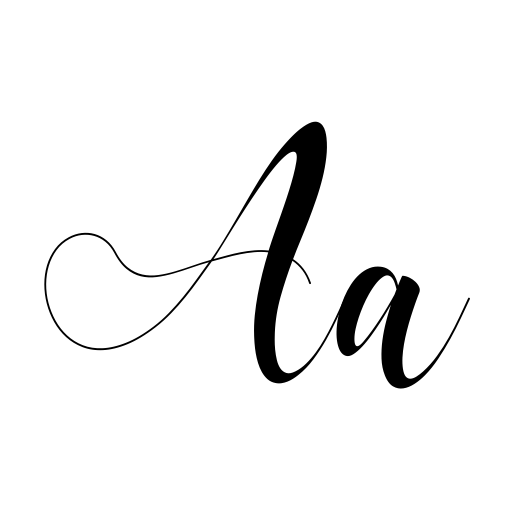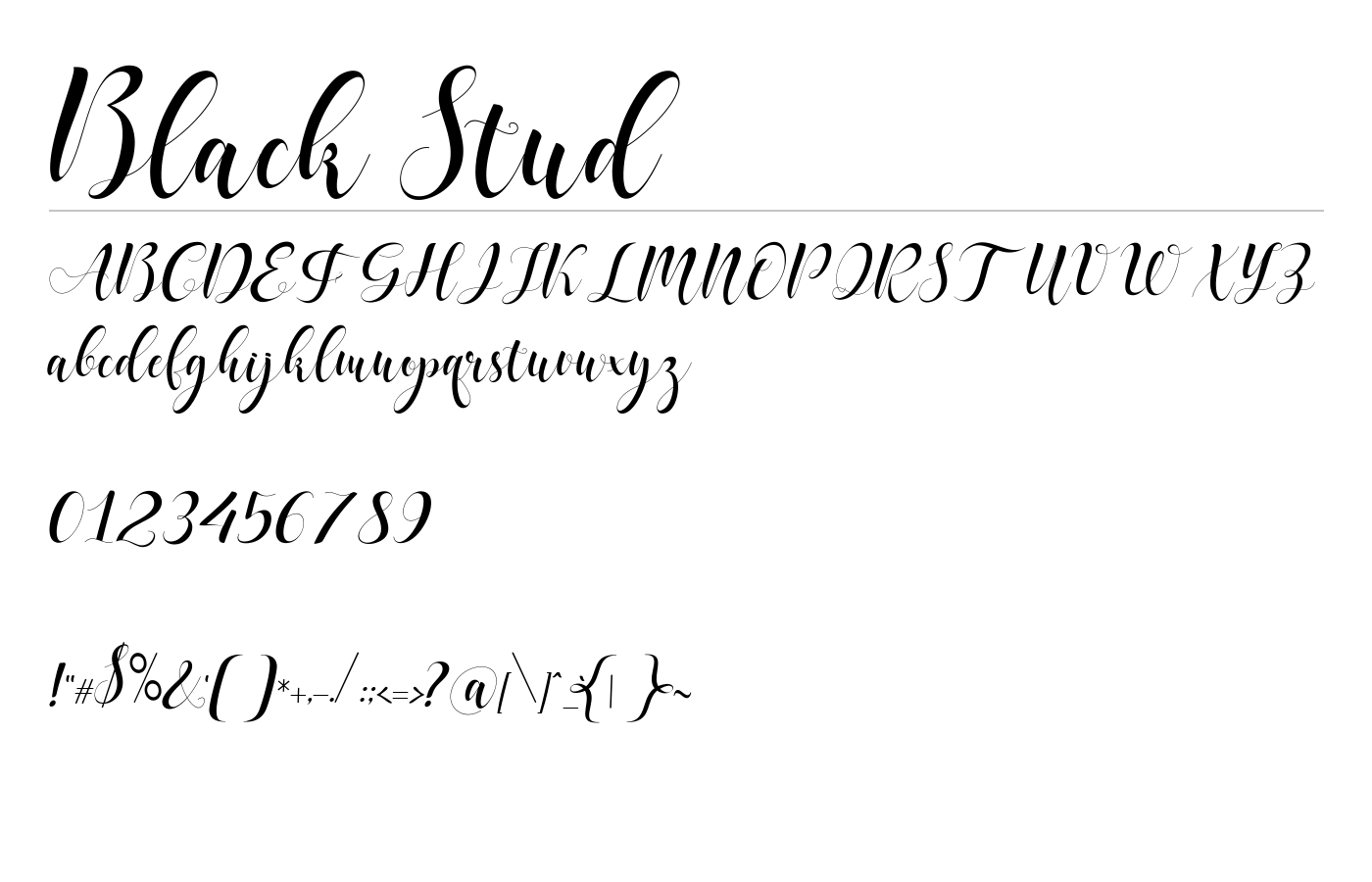
Black Stud is an elegant and stylish script font with flowing, calligraphic strokes that combine thick and thin contrasts for a sophisticated look. Its graceful, swirly letterforms and delicate flourishes create a refined and luxurious feel, making it ideal for wedding invitations, fashion branding, and upscale editorial designs. This font works best in display settings where it can showcase its artistic flair and charm.
Black Stud Font
About Black Stud Font
| Font family | Black Stud Font |
| Designer | KHAIRUL |